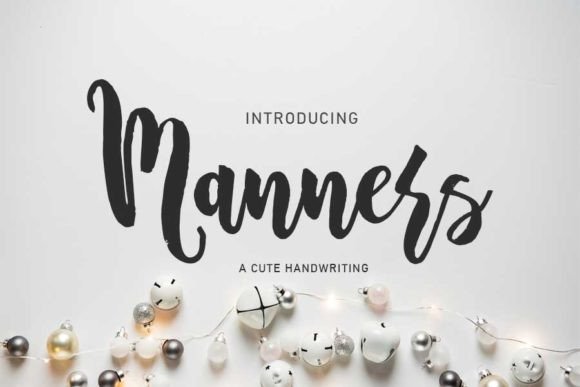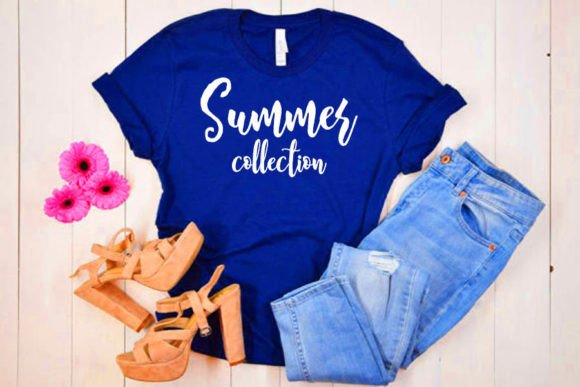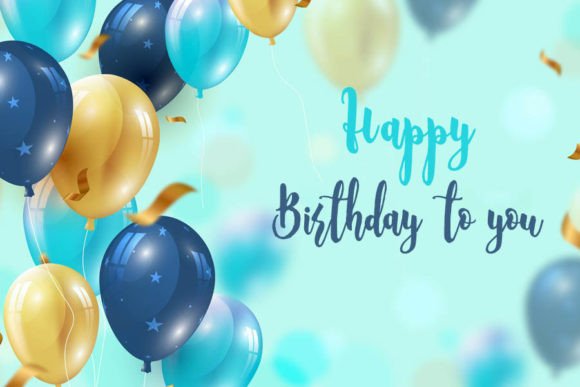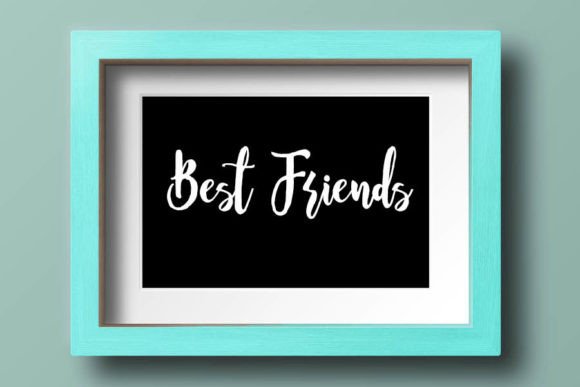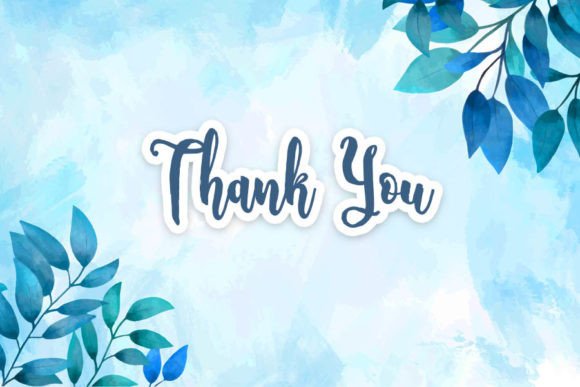
Manners Font
Manners Font: Elegant Handwriting for Sophisticated Designs
Manners is an elegant handwritten font that adds sophistication to various design projects. Its versatility makes it perfect for greeting cards, headlines, and romantic-themed materials.
Key Features of Manners Font
• Elegant Style: Manners brings a romantic and timeless quality to designs.
• Versatile Use: Suitable for many projects, from greeting cards to branding materials.
• Personal Touch: Adds a human element to your work, making it more engaging.
Greeting Cards and Invitations
Manners’ romantic style is ideal for creating heartfelt wedding invitations and special occasion cards. Its elegance adds depth to your messages.
Posters and Headlines
Use Manners to design eye-catching posters and headlines that command attention while maintaining sophistication.
The font’s stylish character makes it perfect for creating memorable logo designs and brand identities that exude elegance.
Why Choose Manners Font?
Manners offers more than just beautiful letters. Here’s why it stands out:
• Evokes emotions and nostalgia in your designs
• Balances readability with artistic flair
• Versatile enough for both personal and professional projects
By using Manners, you open up new design possibilities. Its elegant style works well in many contexts, from book covers to website headers. The font’s ability to convey sophistication can inspire creative ideas and help you approach projects from a fresh perspective.
Manners in Modern Design Trends
Manners aligns well with modern design trends that favor expressive typography. Its handwritten style adds a personal touch that resonates with audiences seeking authenticity in design. This makes it particularly effective for brands targeting sophisticated demographics or those aiming for a timeless, elegant image.
If you’re looking for a font that combines elegance with versatility, Manners is an excellent choice. It’s perfect for adding a touch of sophistication to your work, especially for projects that need to evoke romance or timeless beauty.
Explore how Manners can transform your designs. From personal greeting cards to professional branding materials, this font brings a graceful and captivating quality to your creations.